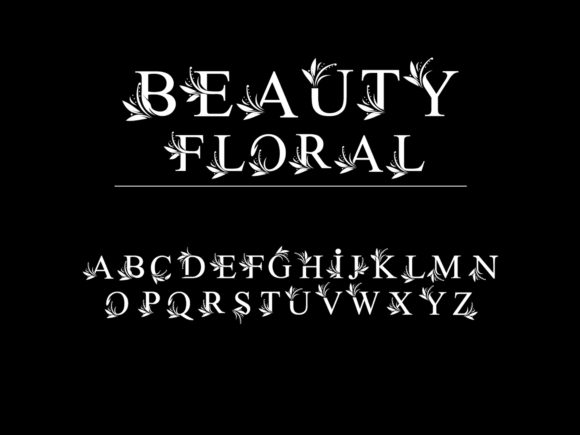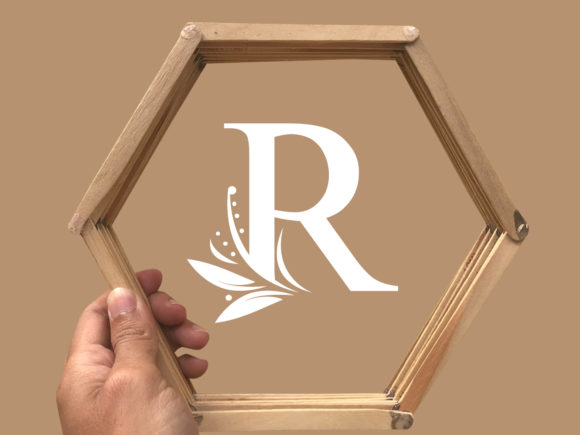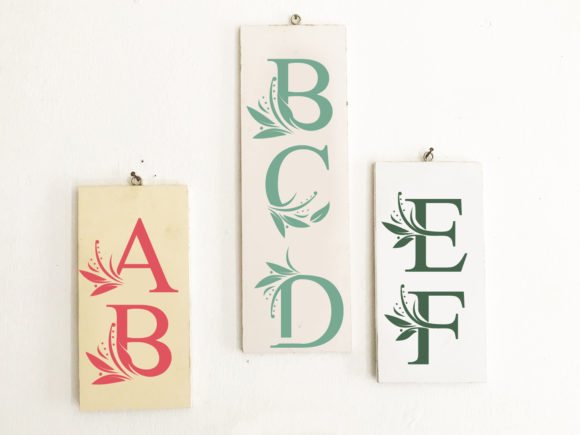
Introducing Flourishes Font: Elevate Your Designs with Elegance
Are you on the lookout for a font that exudes beauty, elegance, and versatility? Look no further than Flourishes Font! This stunning decorative font is perfect for designers and crafters seeking to add a touch of sophistication to their creations. With its incredibly versatile style, Flourishes Font is ideal for a wide range of projects, from wedding invitations and stationary art to social media posts and more.
The Beauty of Flourishes Font
Flourishes Font is a masterclass in elegant design. Its intricate and delicate lines, curves, and swashes come together to create a truly breathtaking typeface. Whether you’re looking to create a romantic and whimsical feel or a more formal and luxurious atmosphere, Flourishes Font is the perfect choice. Its beauty lies in its ability to adapt to any design style, making it an incredibly versatile addition to your font collection.
With Flourishes Font, the creative possibilities are endless! Here are just a few ideas to get you started:
- Wedding Invitations: Create stunning wedding invitations that set the tone for a beautiful and elegant celebration. Use Flourishes Font to add a touch of romance and whimsy to your designs.
- Stationary Art: Elevate your stationary art with Flourishes Font’s elegant and sophisticated style. Perfect for creating beautiful greeting cards, thank you cards, and more.
- Social Media Posts: Add a touch of elegance to your social media posts with Flourishes Font. Create eye-catching graphics, quotes, and announcements that are sure to grab attention.
- Branding and Packaging: Use Flourishes Font to create luxurious branding and packaging designs that exude high-end quality and sophistication.
Why Choose Flourishes Font?
So, what sets Flourishes Font apart from other decorative fonts? Here are just a few reasons why designers and crafters love Flourishes Font:
- Unique and Exclusive: Flourishes Font is a one-of-a-kind typeface that will add a touch of exclusivity to your designs.
- Elegant and Sophisticated: Its elegant and sophisticated style makes it perfect for high-end designs and luxury brands.
- Versatile: Use Flourishes Font for a wide range of projects, from digital designs to print materials.
Tips and Tricks for Using Flourishes Font
To get the most out of Flourishes Font, here are a few tips and tricks to keep in mind:
- Experiment with Different Sizes: Play around with different font sizes to create visual interest and hierarchy in your designs.
- Combine with Other Fonts: Pair Flourishes Font with other fonts to create a unique and eye-catching typography combination.
- Use Swashes and Flourishes: Take advantage of Flourishes Font’s beautiful swashes and flourishes to add a touch of elegance to your designs.
In conclusion, Flourishes Font is a beautiful and elegant decorative font that is sure to elevate your designs to the next level. With its incredibly versatile style, endless creative possibilities, and ease of use, it’s the perfect addition to any designer’s or crafter’s font collection. So why wait? Fall in love with Flourishes Font and start creating stunning designs today!